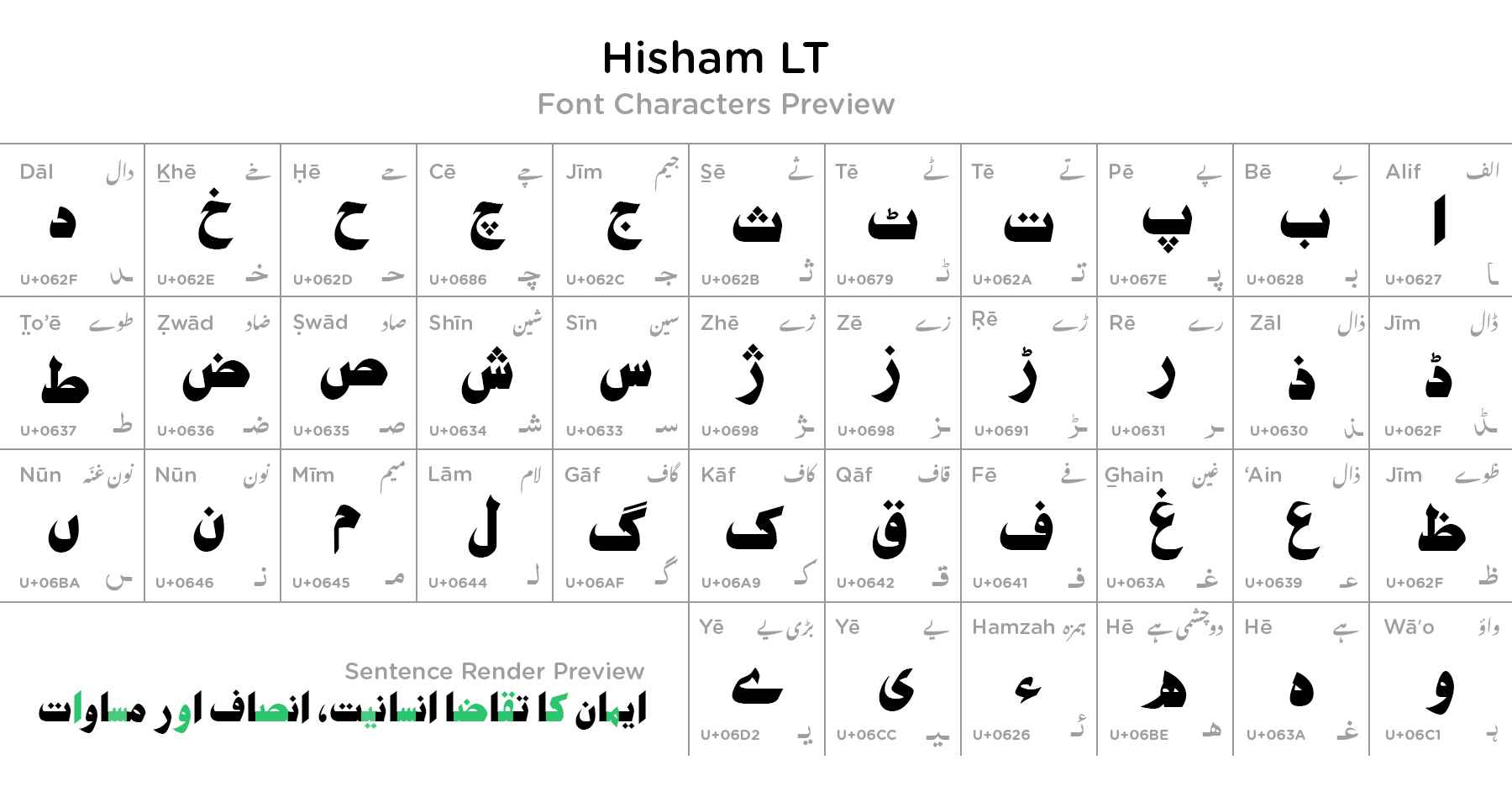
Hisham LT is a modern Arabic headline typeface that was created by Lebanese calligrapher Mr. Ahmed Maged and initially developed by Linotype-Hell Ltd. It is now available in OpenType format, offering a unique design characterized by a strong baseline and strategically placed cut-away effects, complemented by bold vertical strokes and dynamic diagonals. This compact font introduces a fresh style to Linotype's collection of Arabic headline fonts. By including Latin glyphs from Optima Extra Black, Hisham enables users to set text in both Western European and Arabic languages seamlessly without the need to switch between fonts. Supporting Arabic, Persian, and Urdu, the font encompasses the Basic Latin character set (Western CP 1252 Latin 1/ANSI and Macintosh US Roman) alongside the Arabic character set (CP 1256). Additionally, it provides tabular and proportional numerals for Arabic, Persian, and Urdu, as well as tabular European (Latin) numerals. It is available in 2 different styles including: